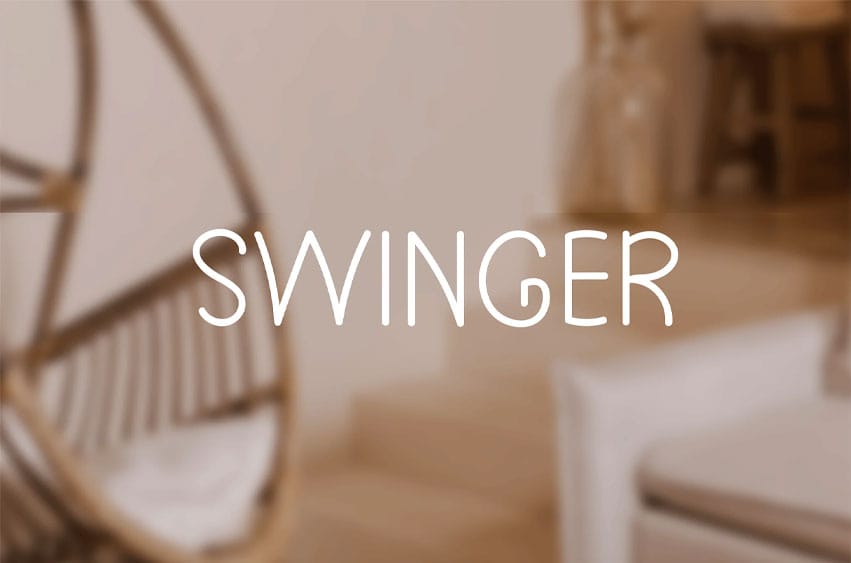
Swinger Font Unique Hand Written Modern Display Font. It is suitable for flyers, posters, novels, letterheads, or any design requirements you want to be awesome.